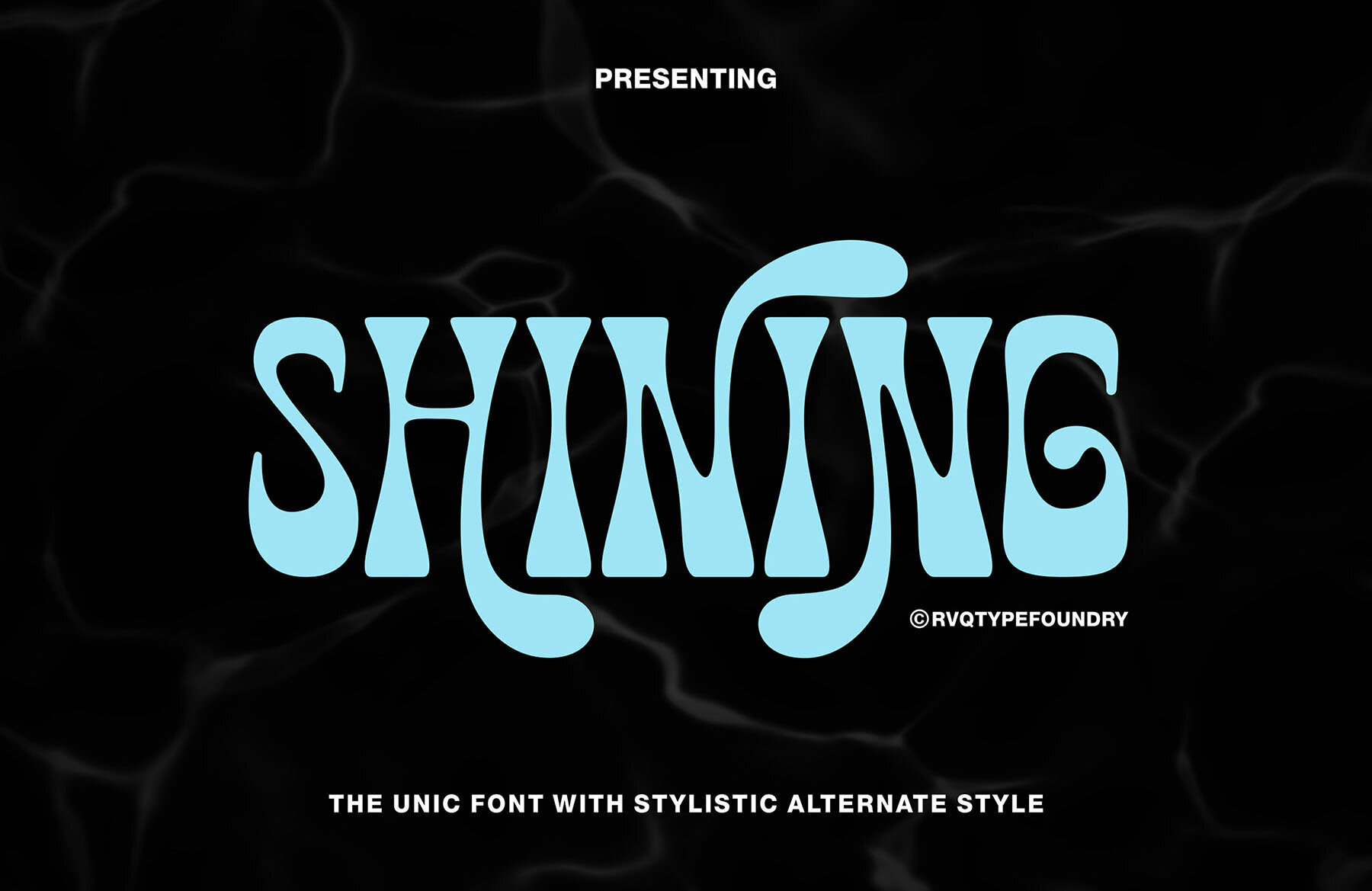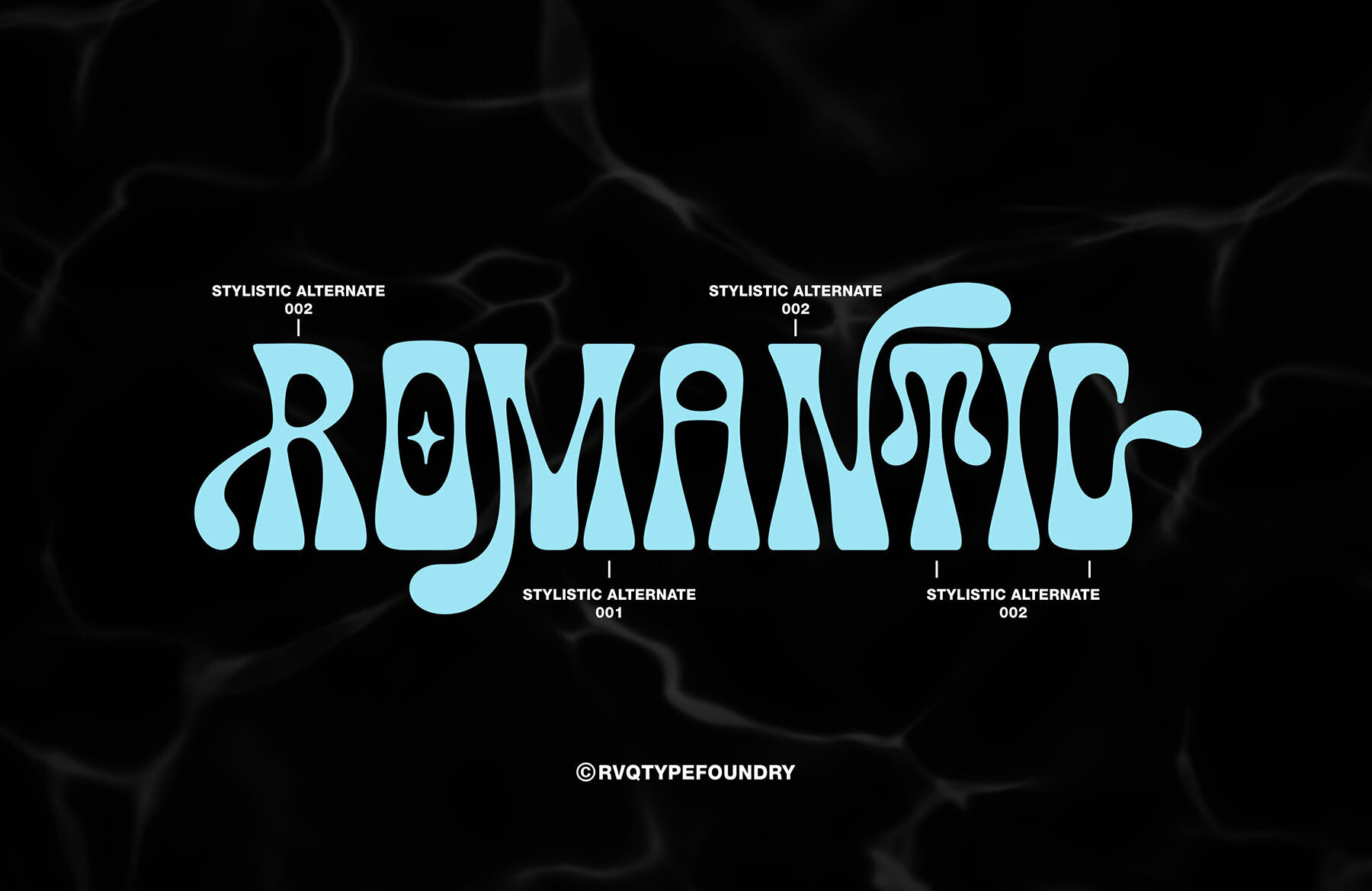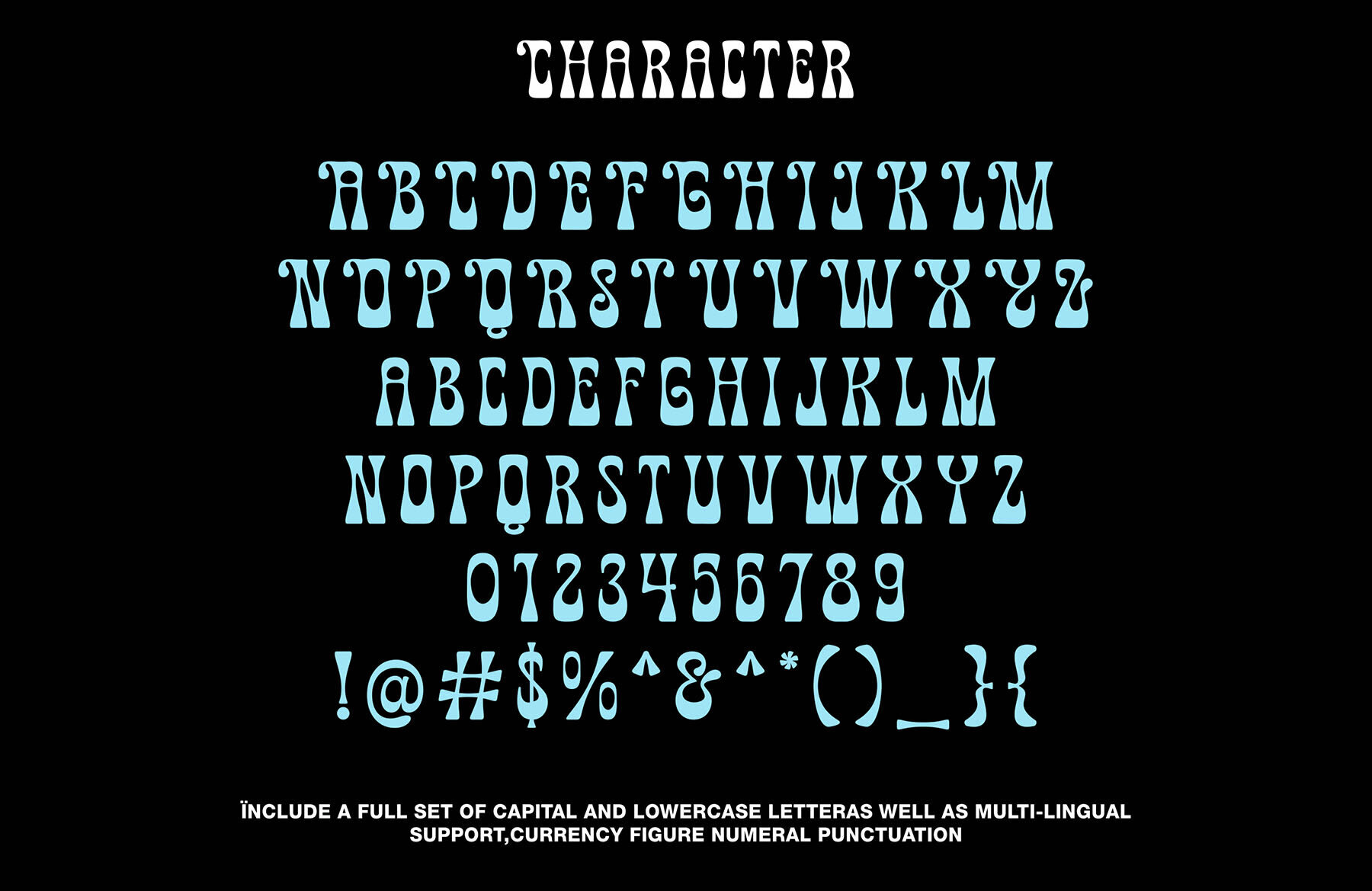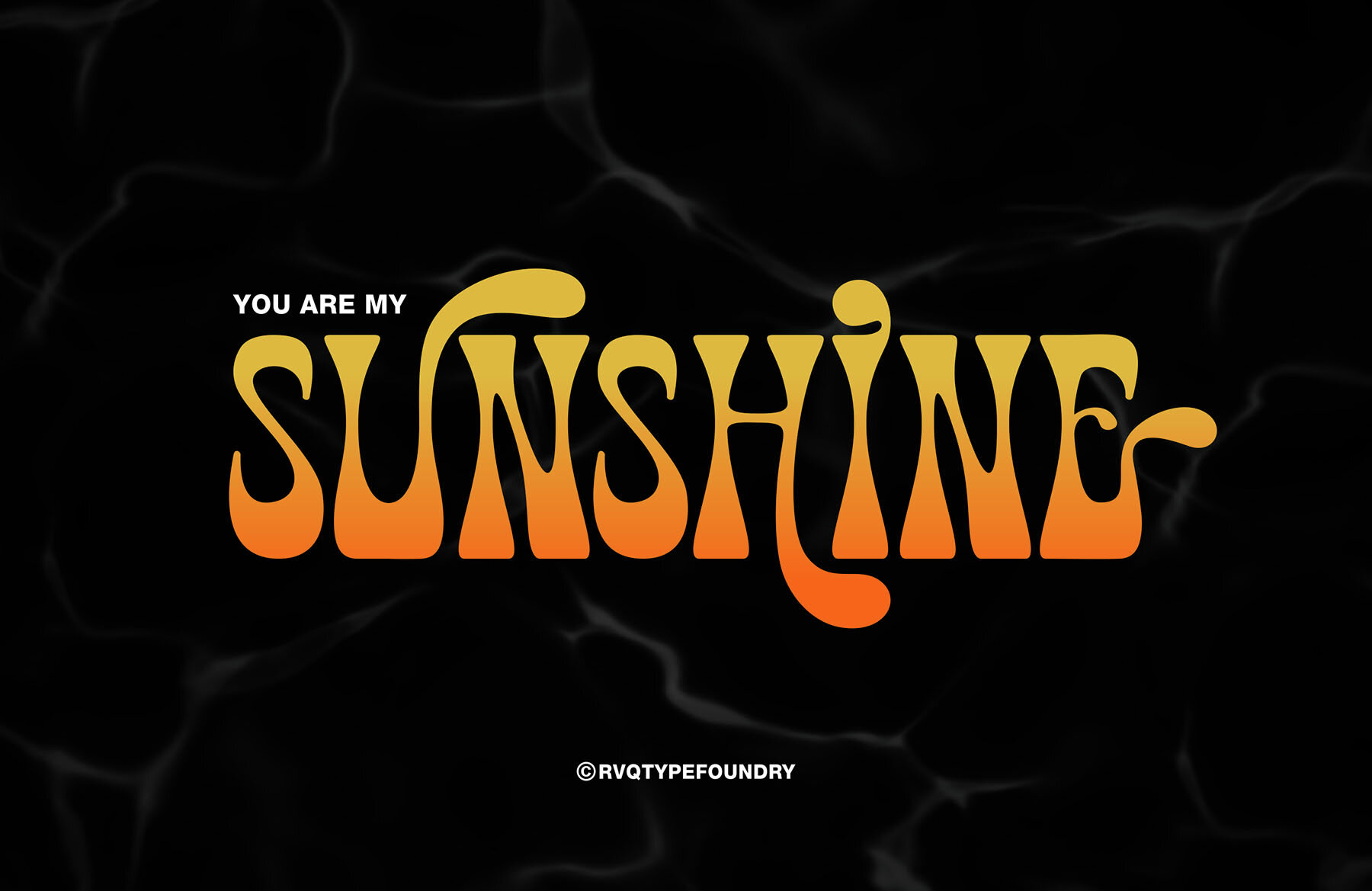
Shining Font
Shining Regular
The Shining Typeface by Rvq Typefoundry captures a vintage and elegant aesthetic with its character set. To craft beautiful typographic combinations, blend uppercase with lowercase letters and incorporate alternative glyphs for added flair. This typeface includes a comprehensive set of capital and lowercase letters, multilingual support, currency figures, numerals, punctuation, and some extra glyphs.The Shining Typeface: Vintage Elegance Reimagined